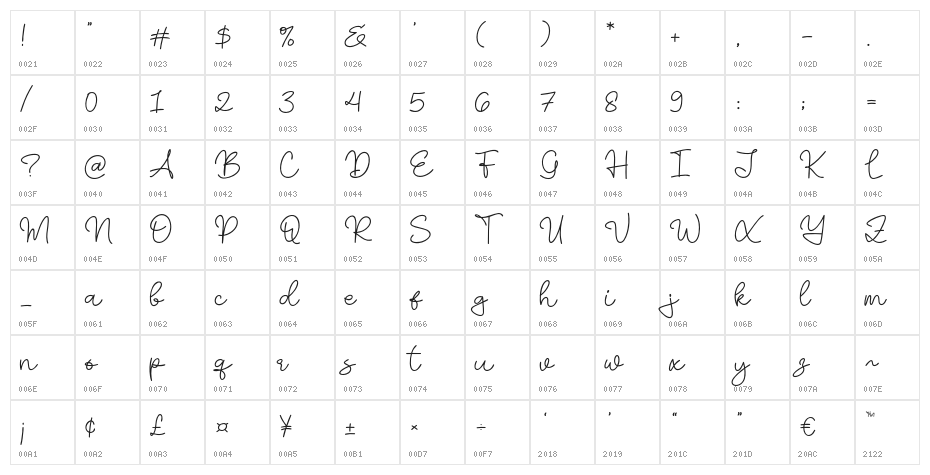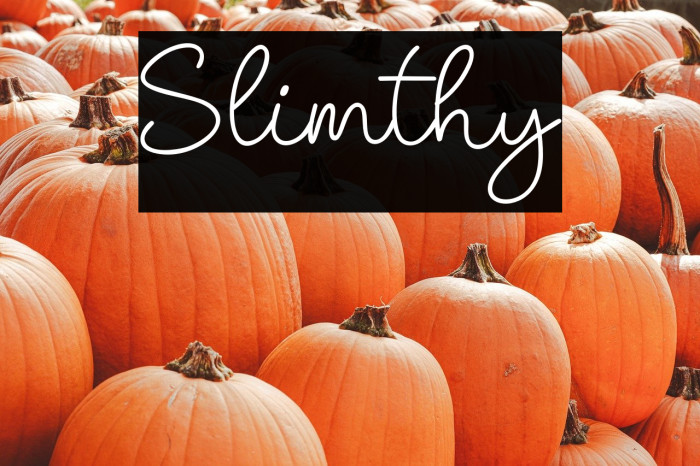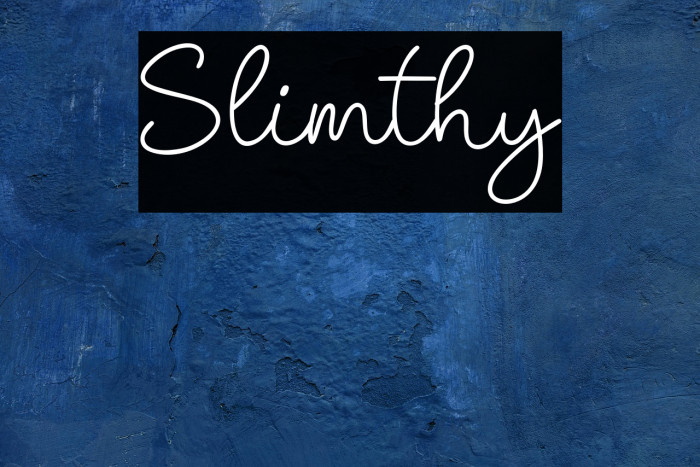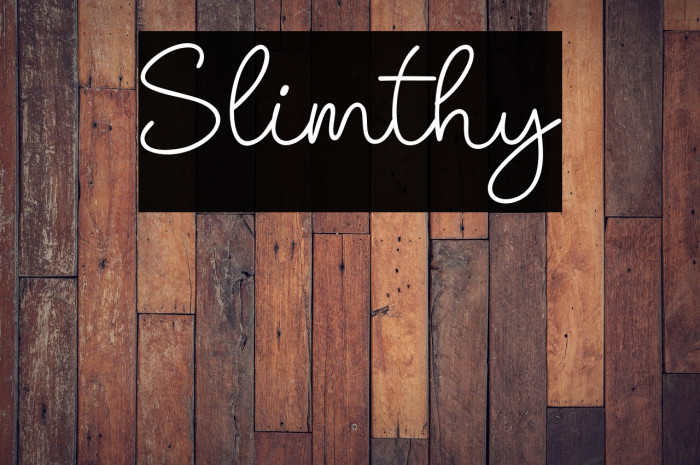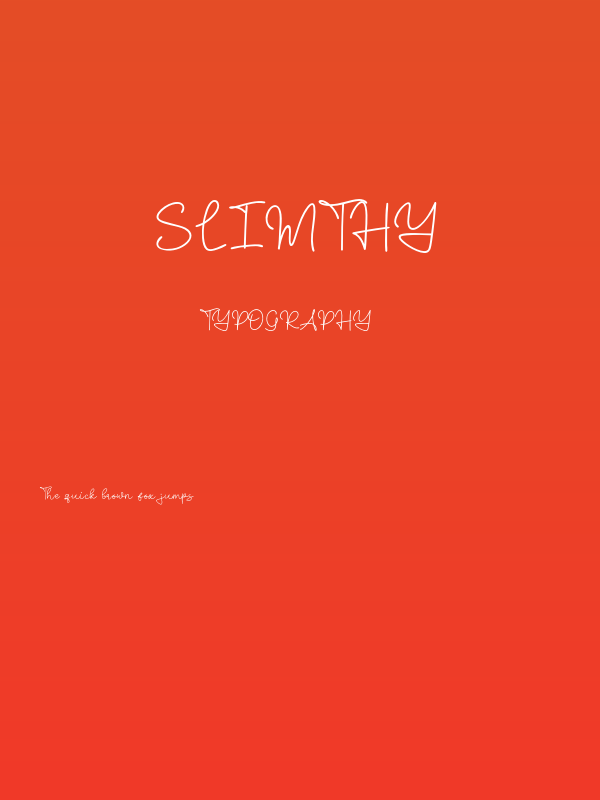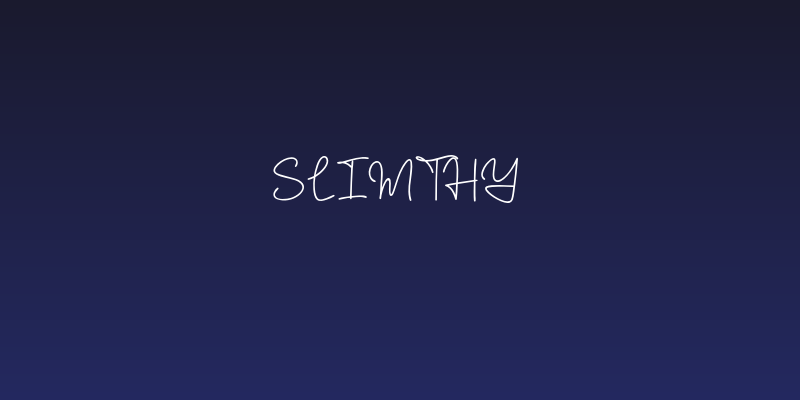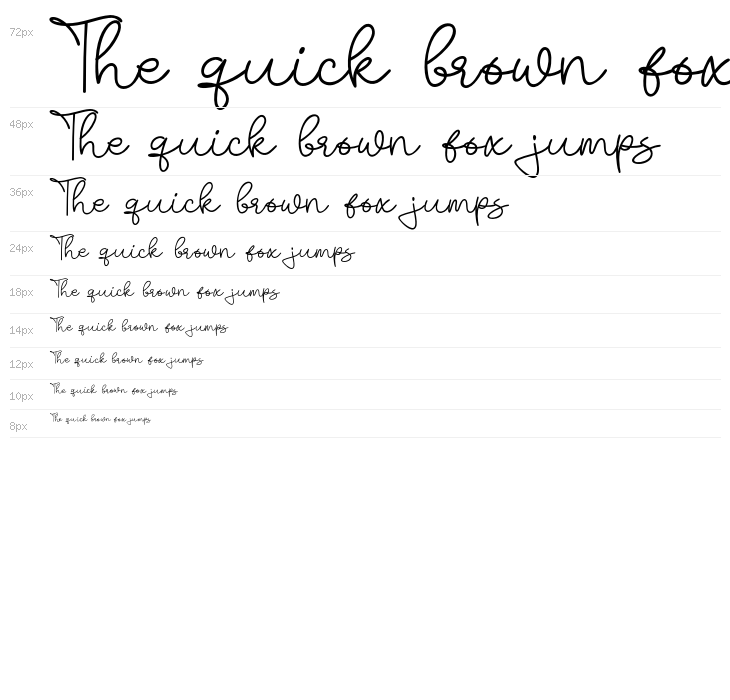
Slimthy Font
Slimthy Description
This font exudes a playful and casual handwritten style, characterized by its fluid and continuous strokes. The letters are connected in a cursive manner, giving it a personal and informal touch. The uppercase letters maintain a consistent height, while the lowercase letters exhibit a slight slant, enhancing the handwritten feel. The numerals and special characters follow the same fluid style, ensuring uniformity across the font. The overall appearance is elegant yet approachable, making it suitable for projects that require a personal or creative touch.
| Overall Style | Casual, Playful |
| Use Case | Logos, Invitations, Social Media |
| Proposed Projects | Ideal for greeting cards, personal invitations, creative branding, and social media graphics. |